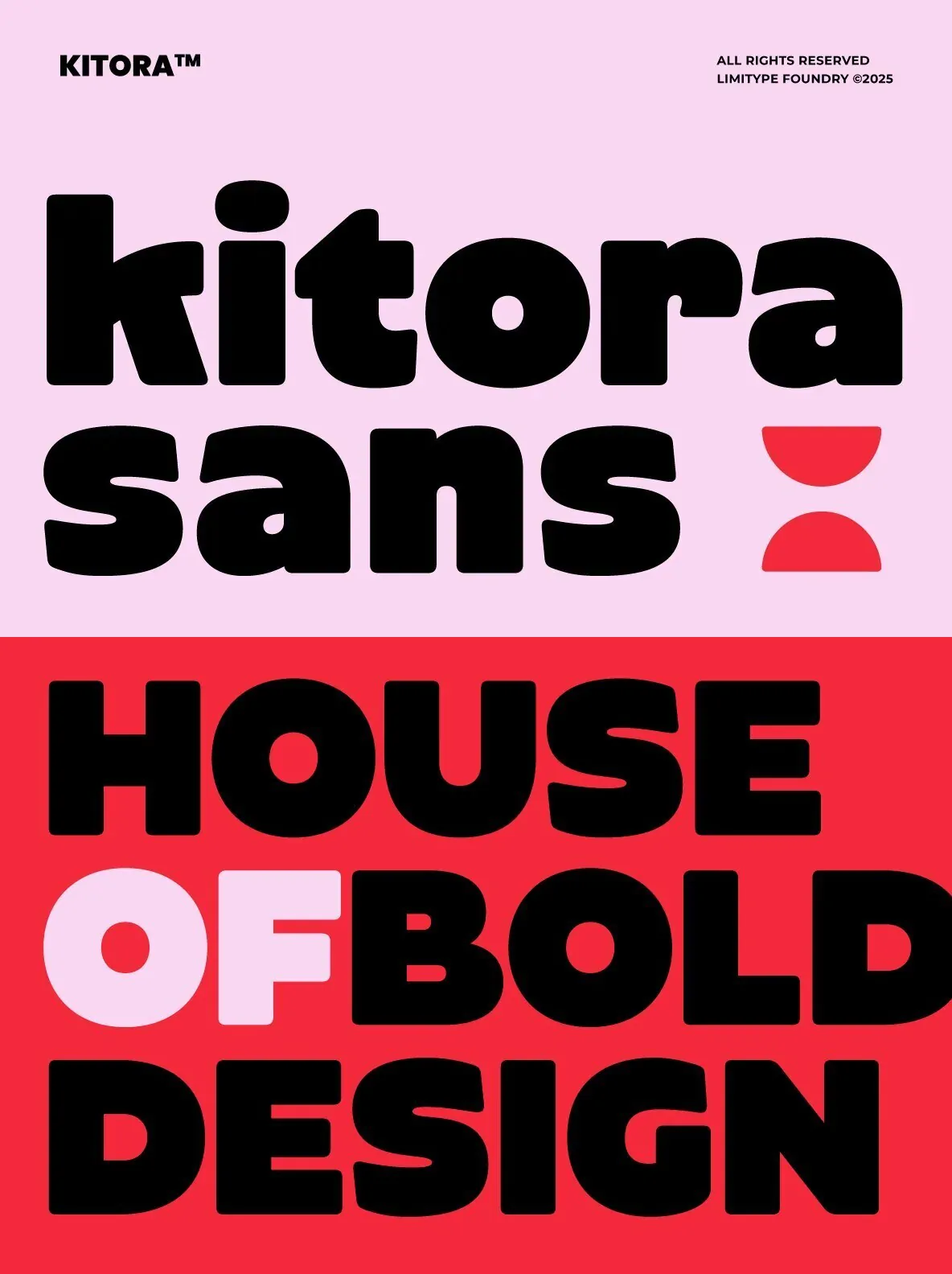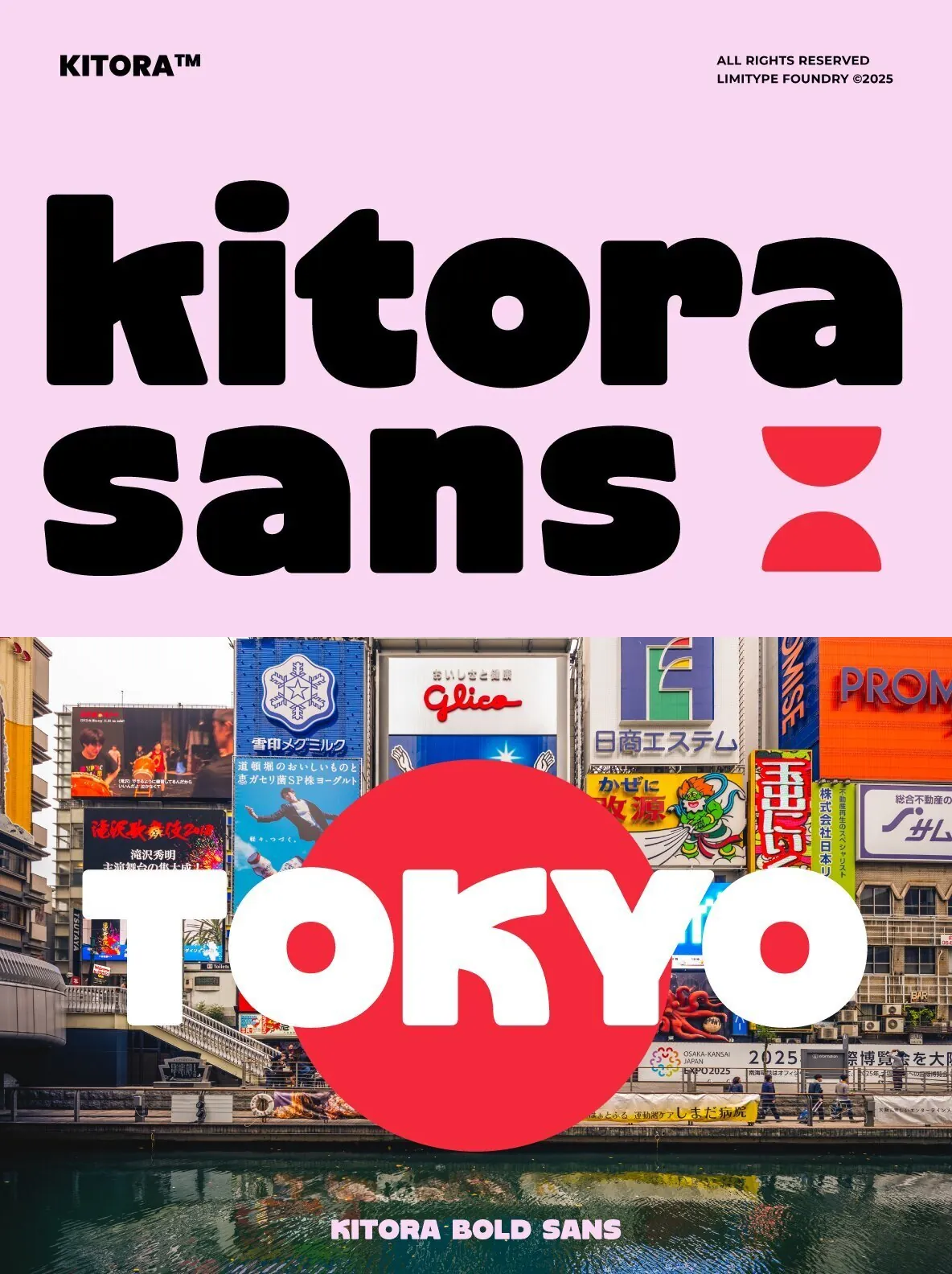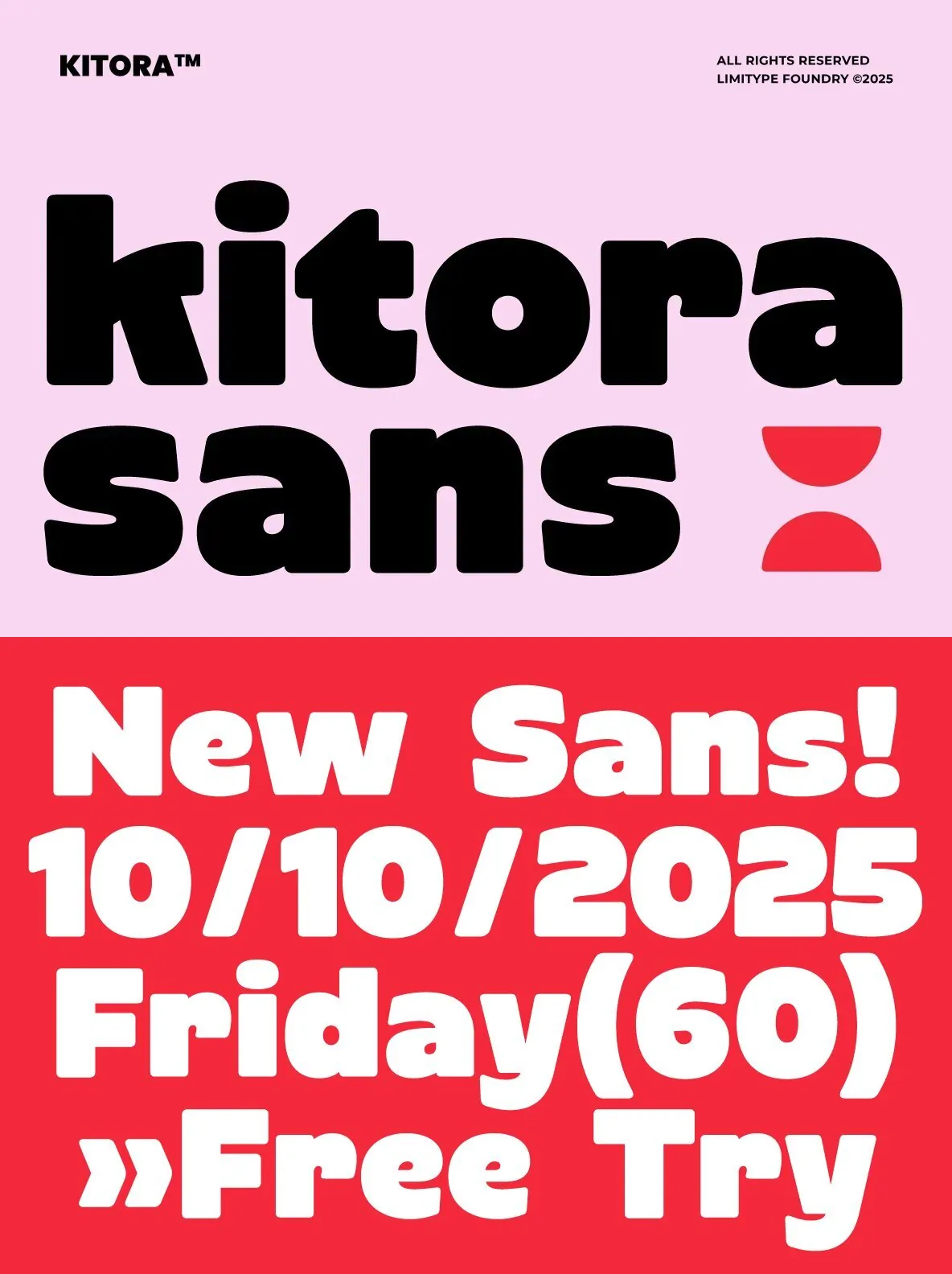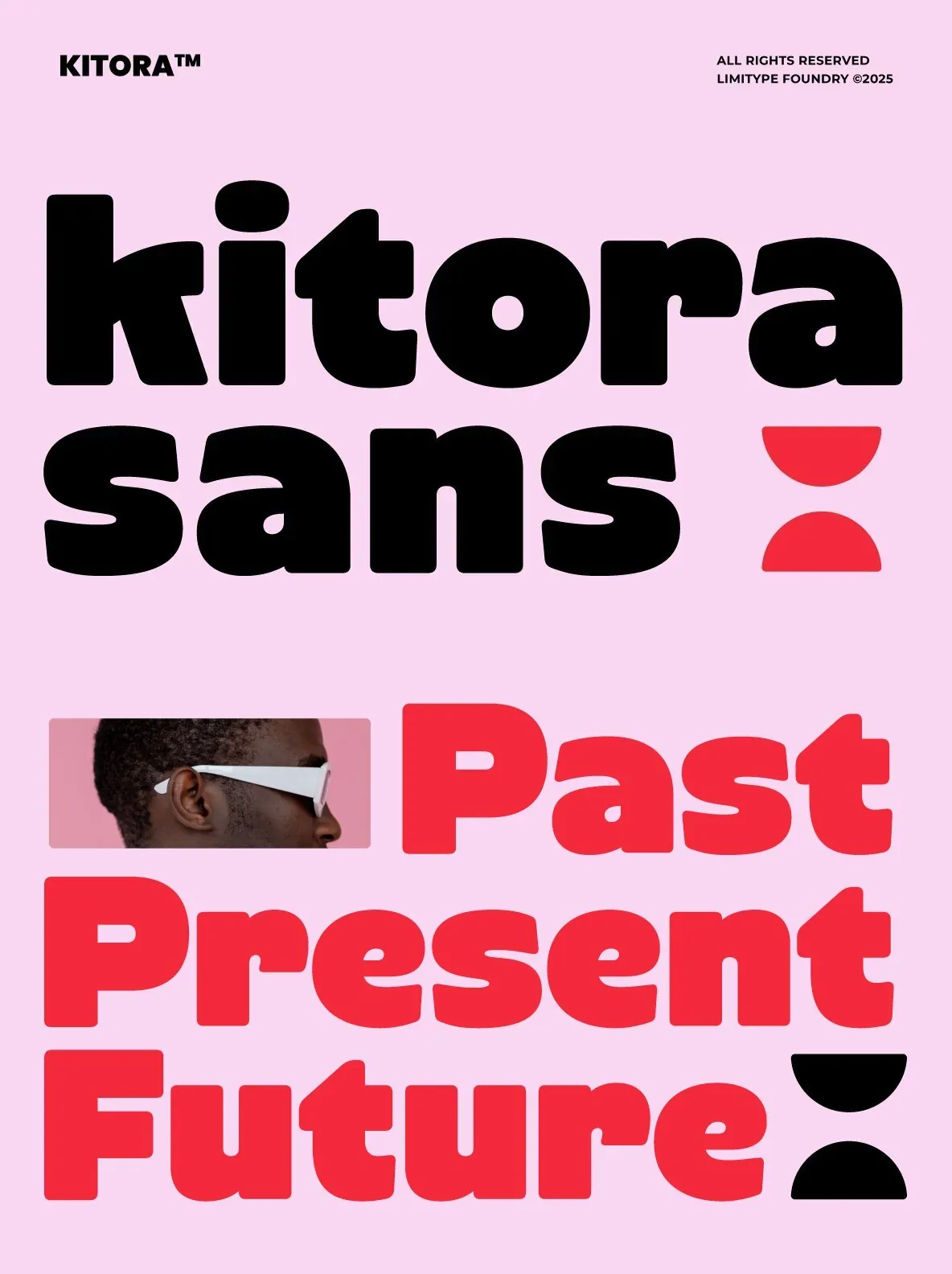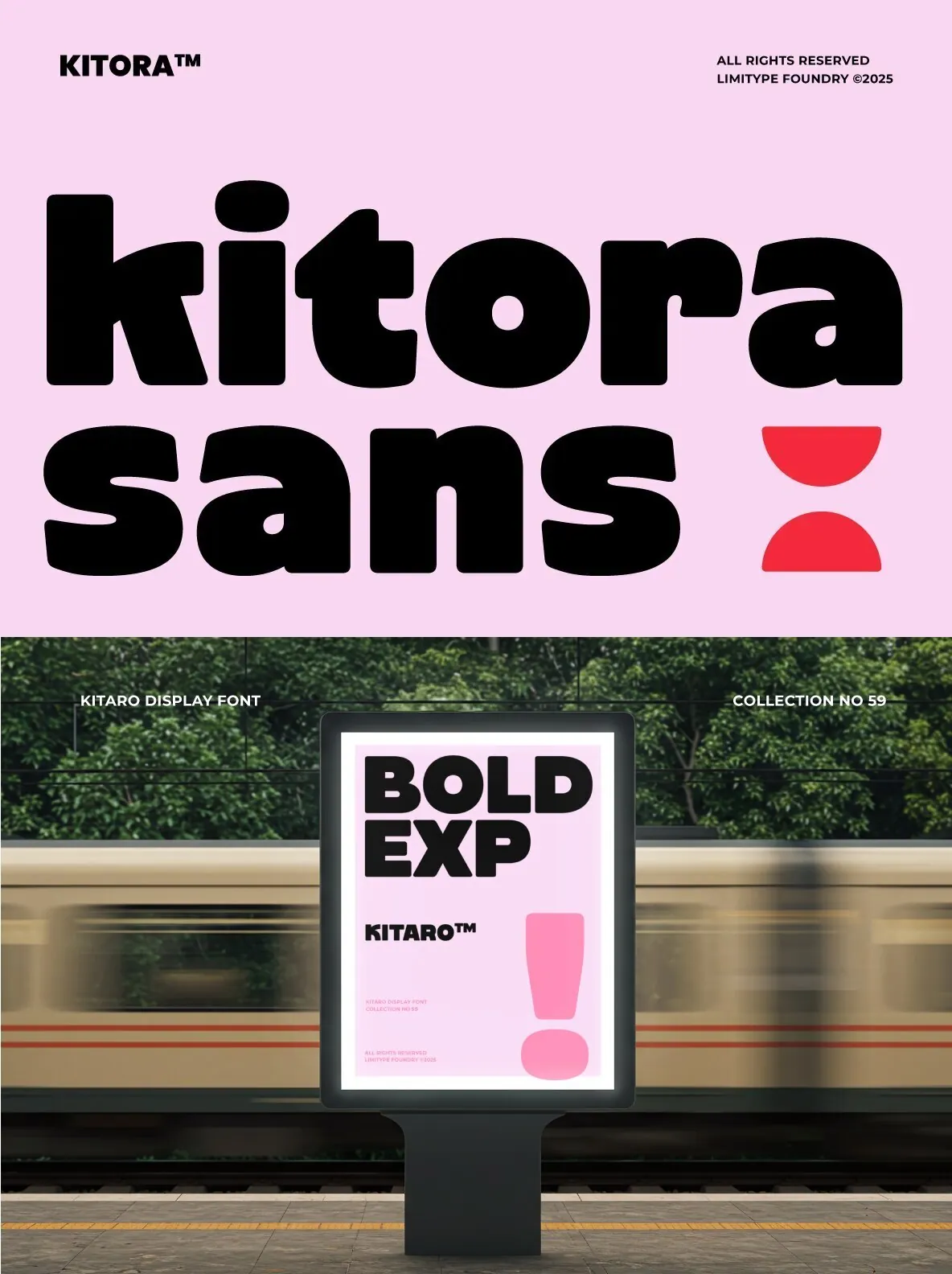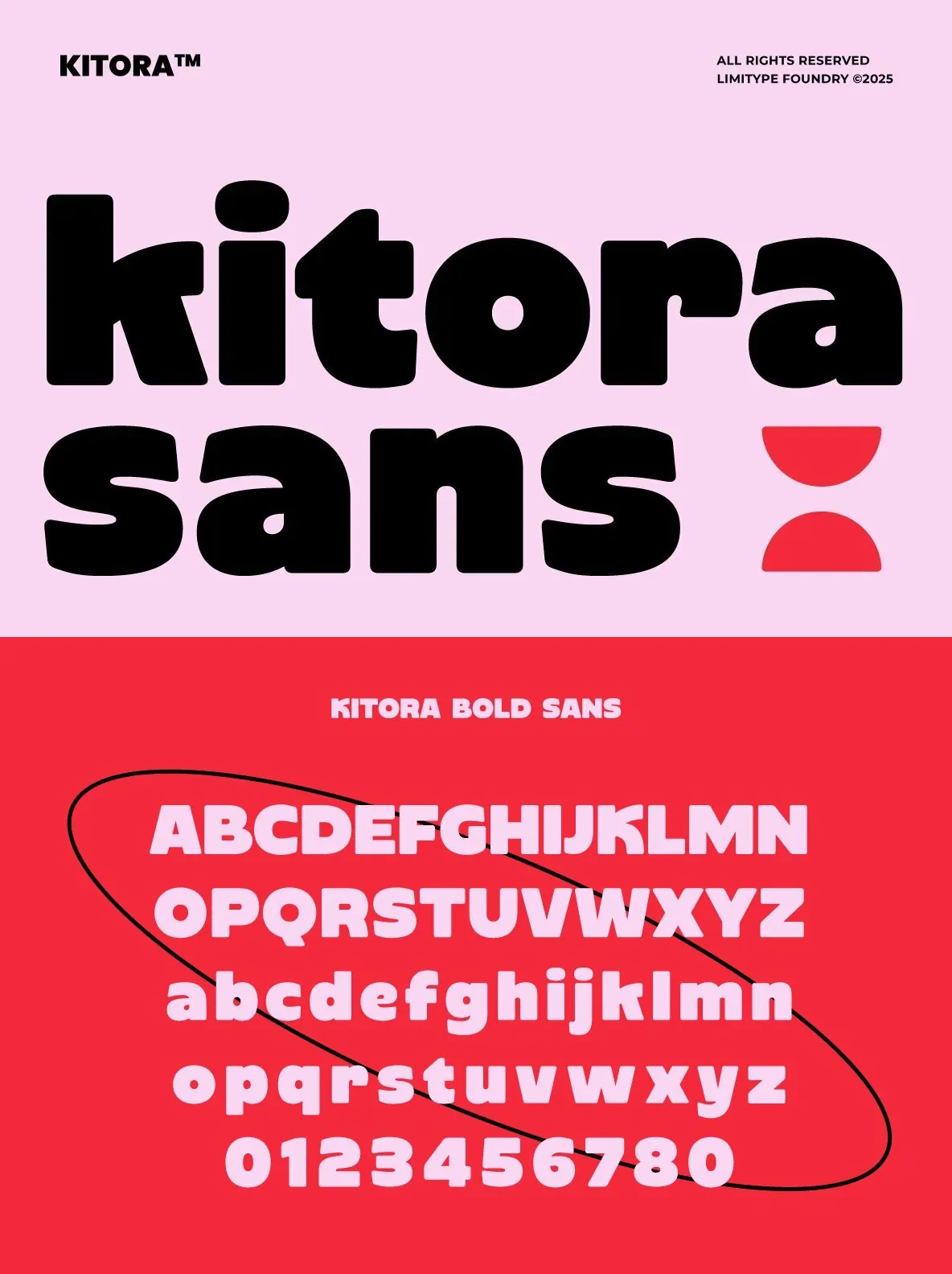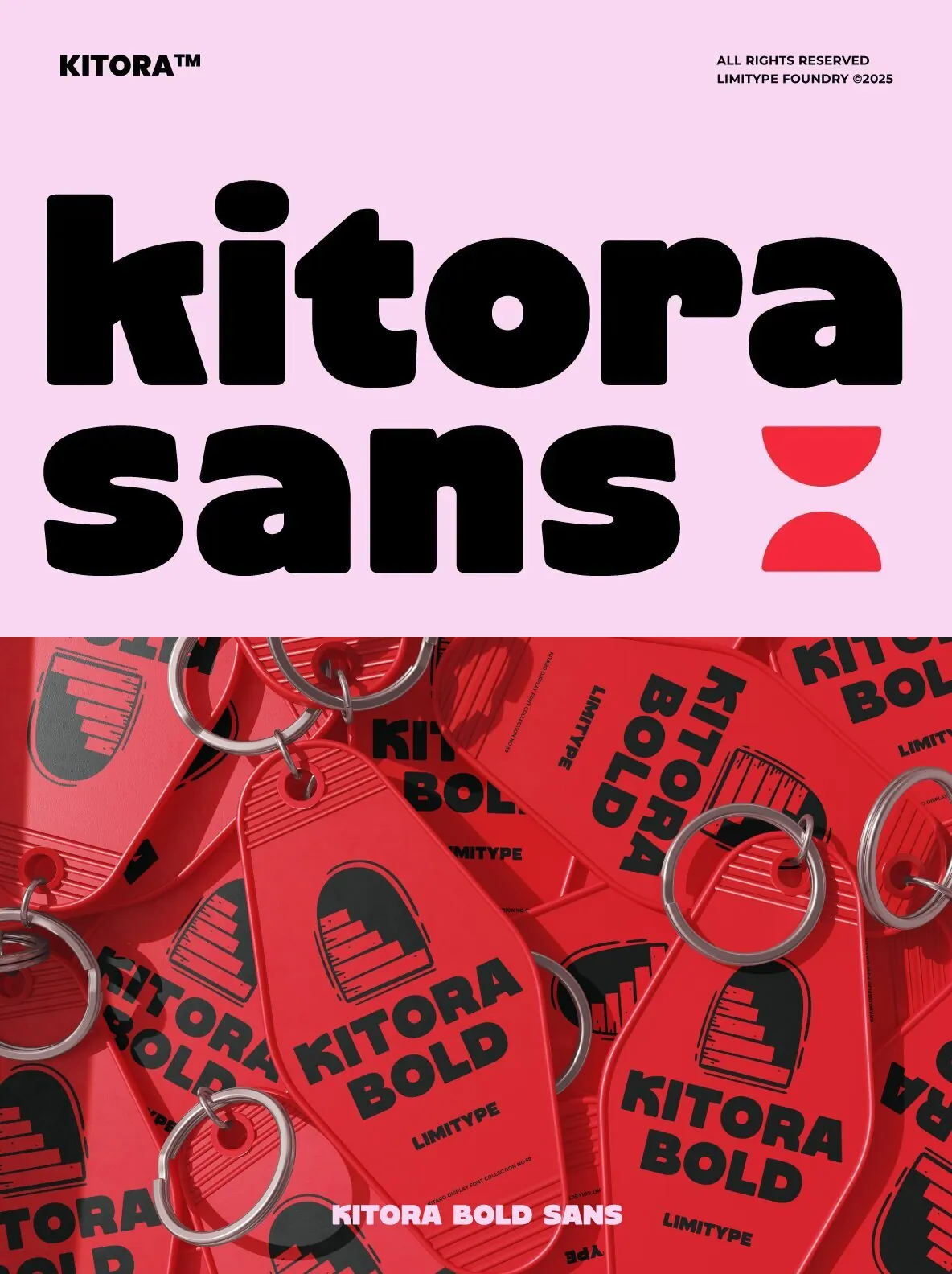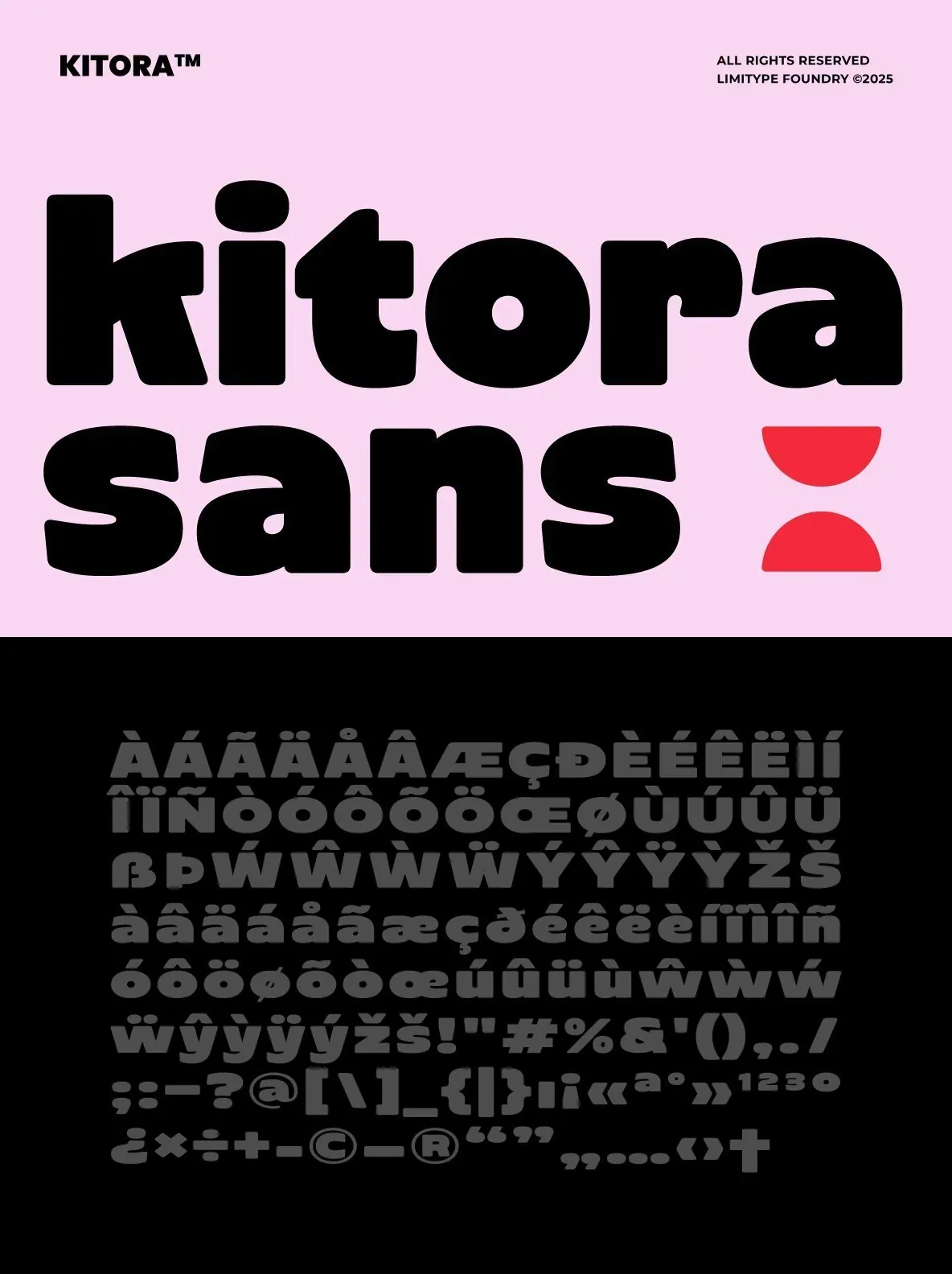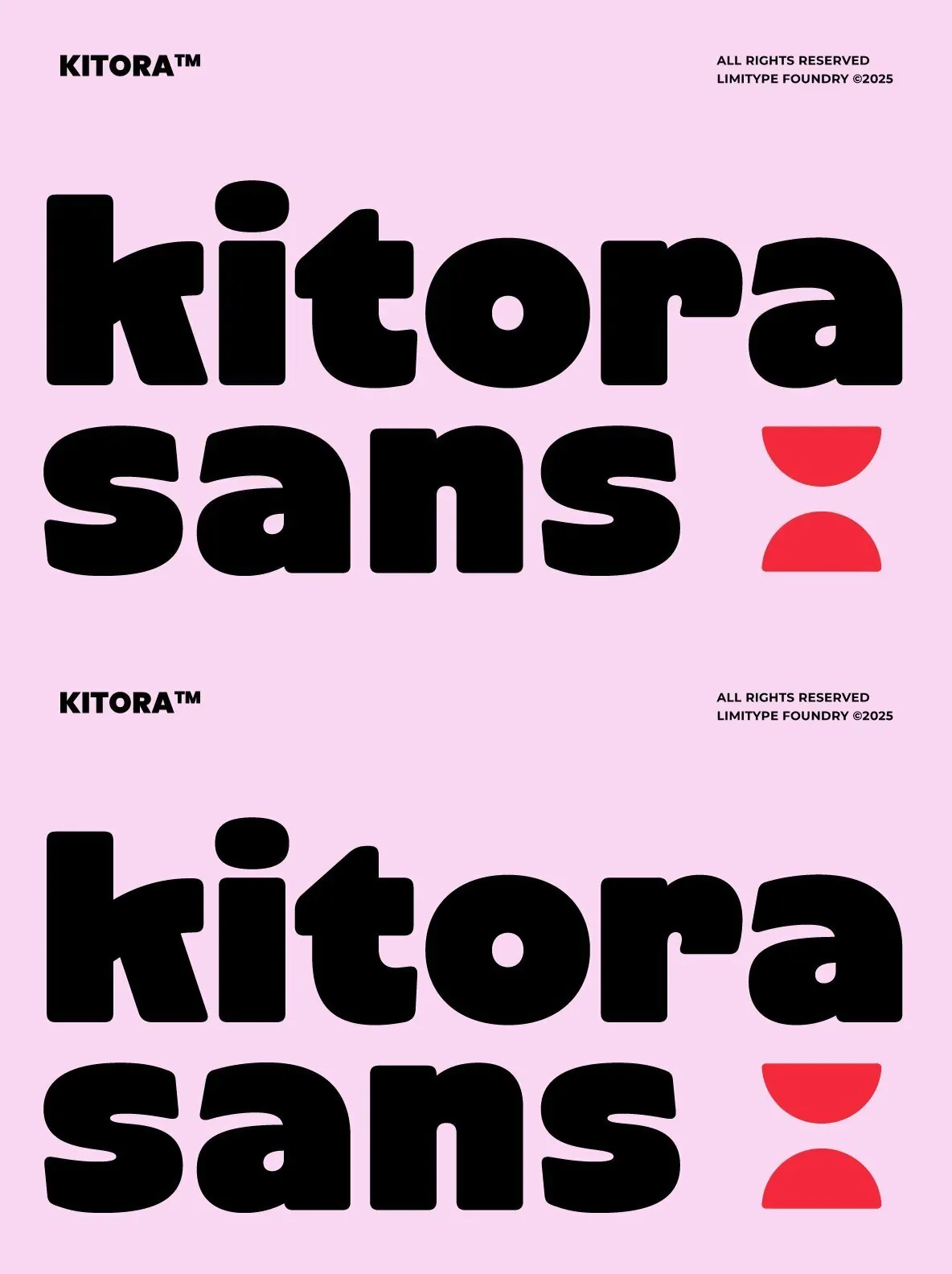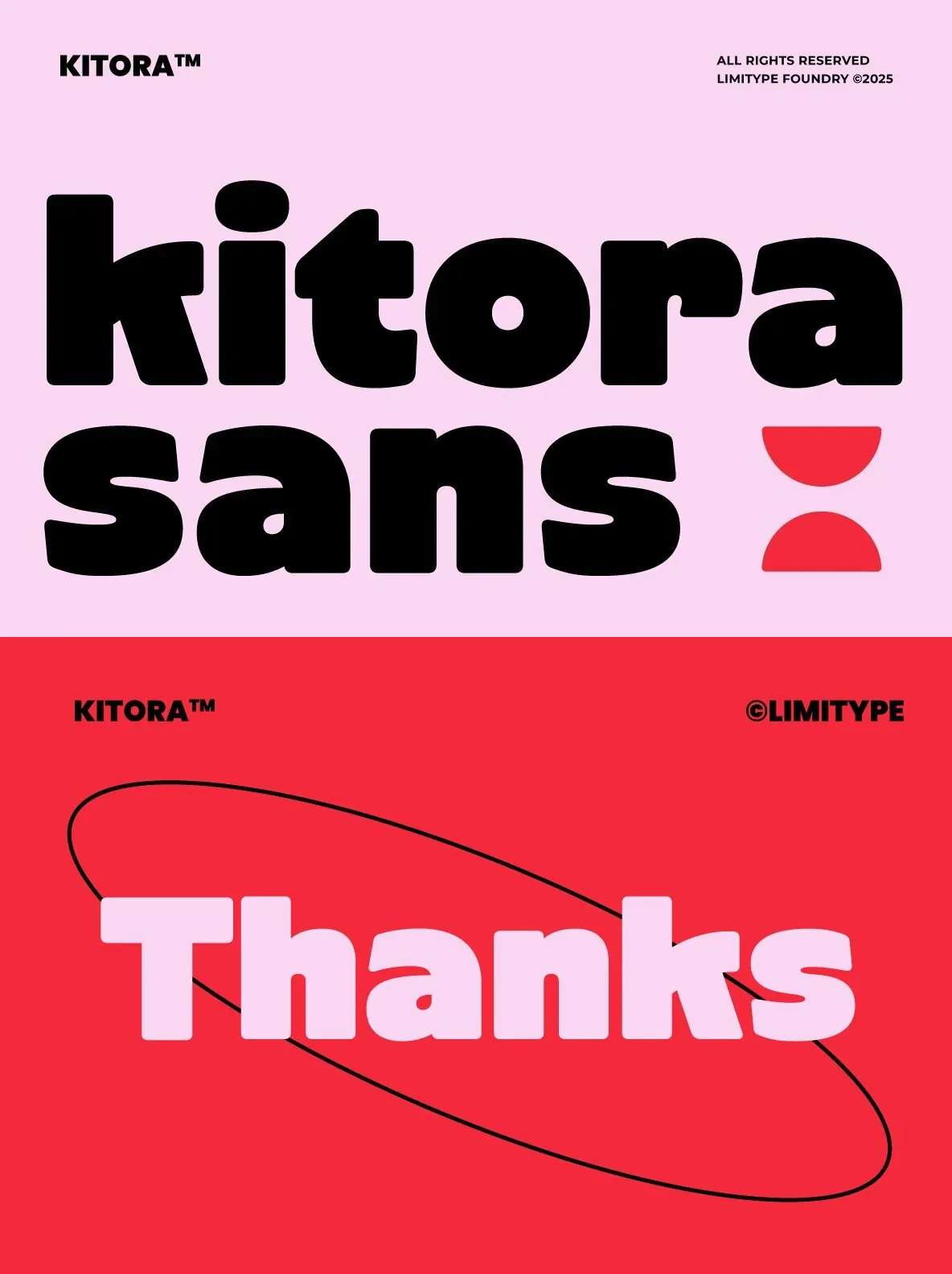
Kitora: Rounded Sans Serif for Bold Design Statements
Kitora is a sans serif typeface designed with compact, rounded forms that create a contemporary and approachable presence. The balance between its smooth contours and solid structure produces an impression that is both strong and inviting. This thoughtful construction supports a playful tone without sacrificing clarity, making it a versatile option for creative projects seeking a modern yet personable touch.
With its bold character, Kitora stands out in branding, headlines, and identity systems where a confident voice is essential. The font’s warm undertones make it particularly suited to projects that require a human element alongside visual impact.
Rounded, compact letterforms
Suitable for headlines and branding
Balanced strength and warmth
Modern, playful design